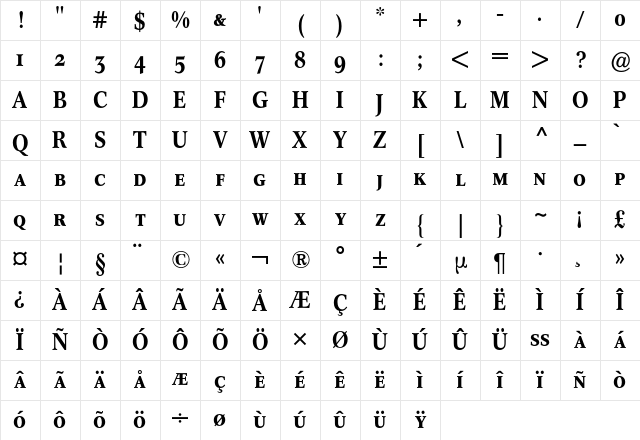
Concorde Nova Expert BQ Regular
Concorde Nova Expert BQ Family
Concorde Nova Expert BQ Regular
Design Context for Concorde Nova Expert BQ
Concorde Nova Expert BQ is a composed and adaptable typeface that performs quietly and consistently across a wide range of design contexts.